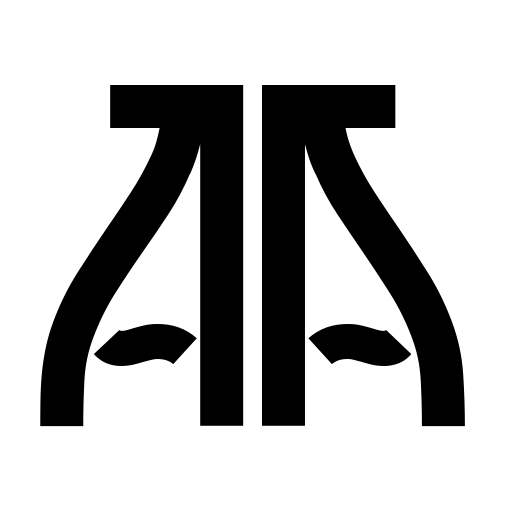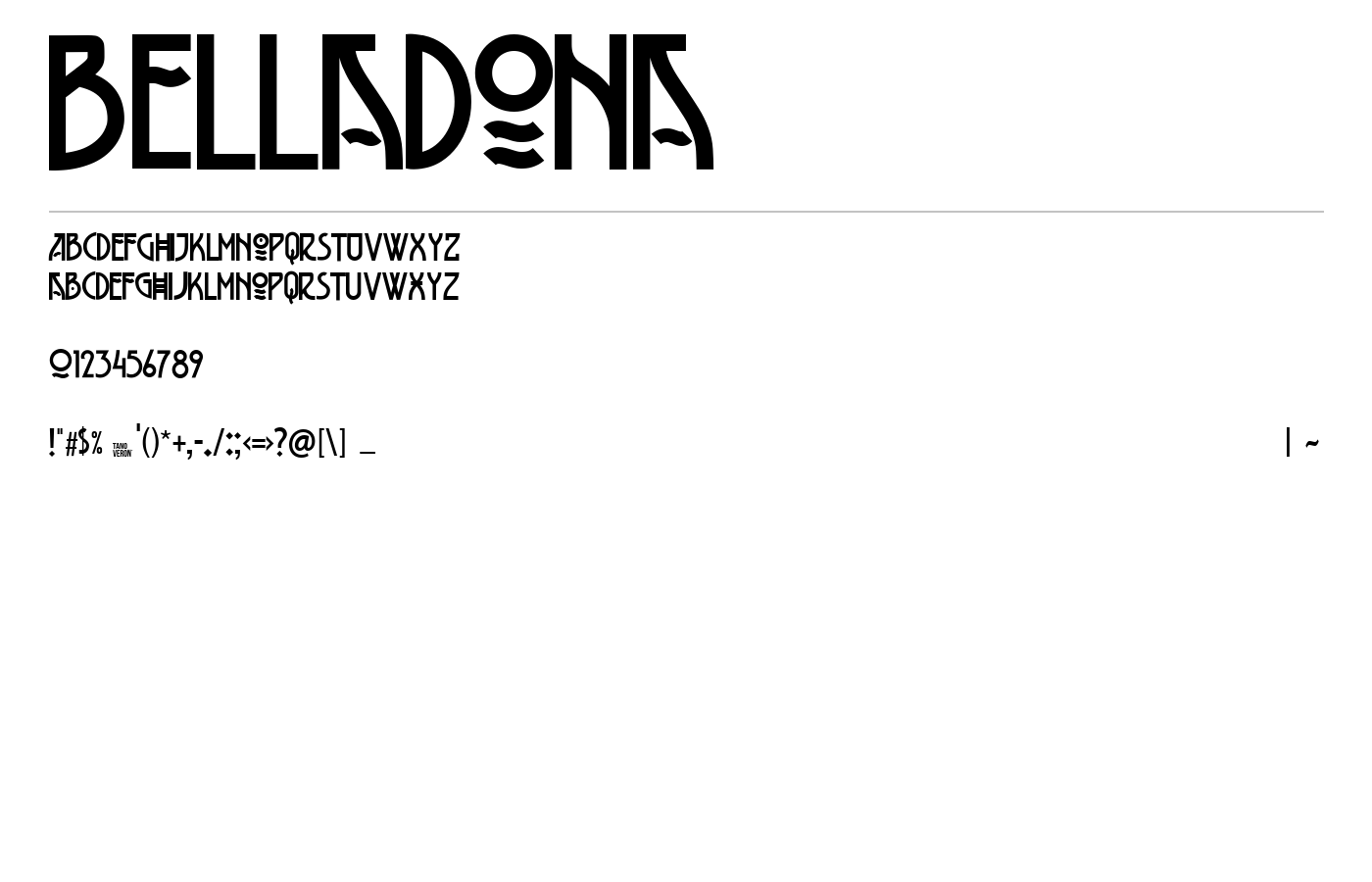
Belladona is a bold, condensed sans serif font with a strikingly artistic and geometric appearance, characterized by sharp angles and unique decorative elements that add a mysterious, avant-garde flair. Its high contrast and tight spacing make it ideal for eye-catching headlines, logos, and branding that seek to convey creativity and modernity with a touch of elegance. This distinctive font works best in fashion, editorial design, and display uses where originality and strong visual impact are key.
Belladona Font
About Belladona Font
| Font family | Belladona Font |
| Designer | Tano Veron |